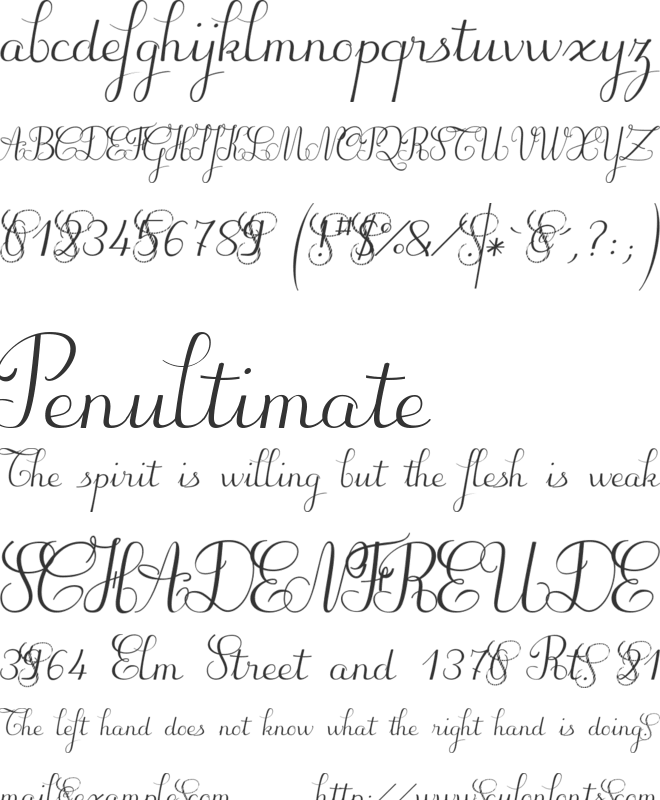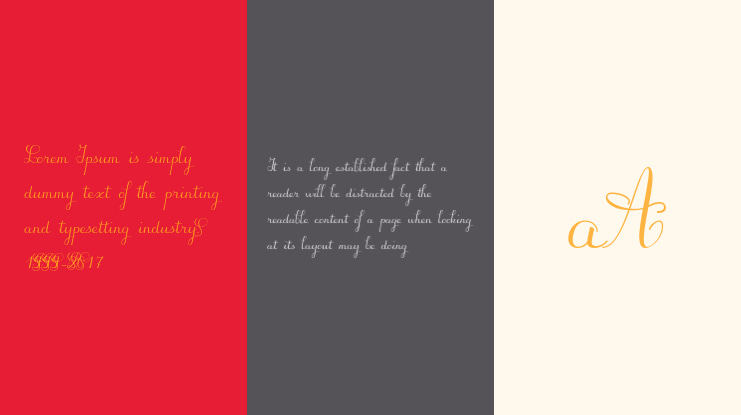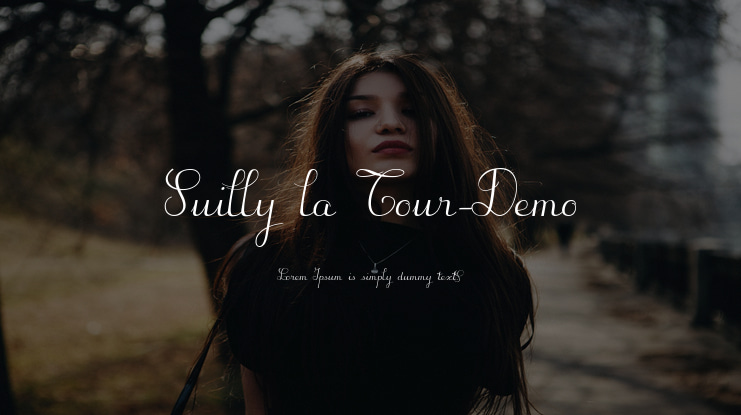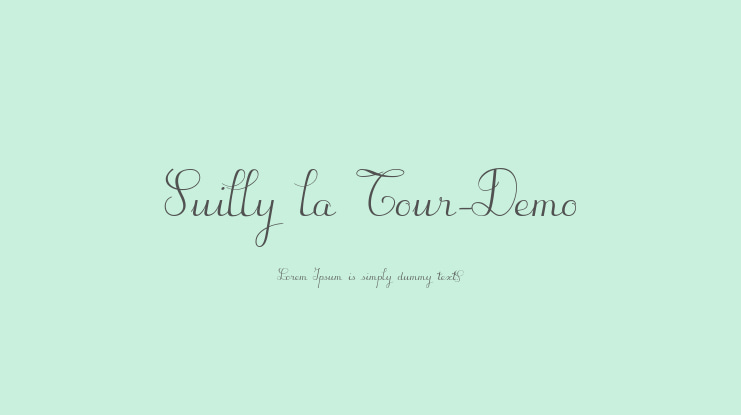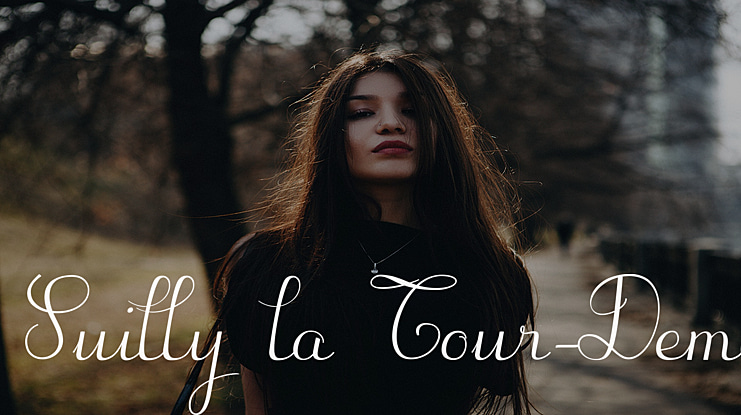
Suilly la Tour-Demo Font
Suilly la Tour is an elegant calligraphic and legible font.
With his three character sets, Suilly la Tour uses OpenType features (liga, init, fina, isol) especially in second set.
Created by Jean Boyault of JBFoundry with FontForge (http://fontforge.sf.net)